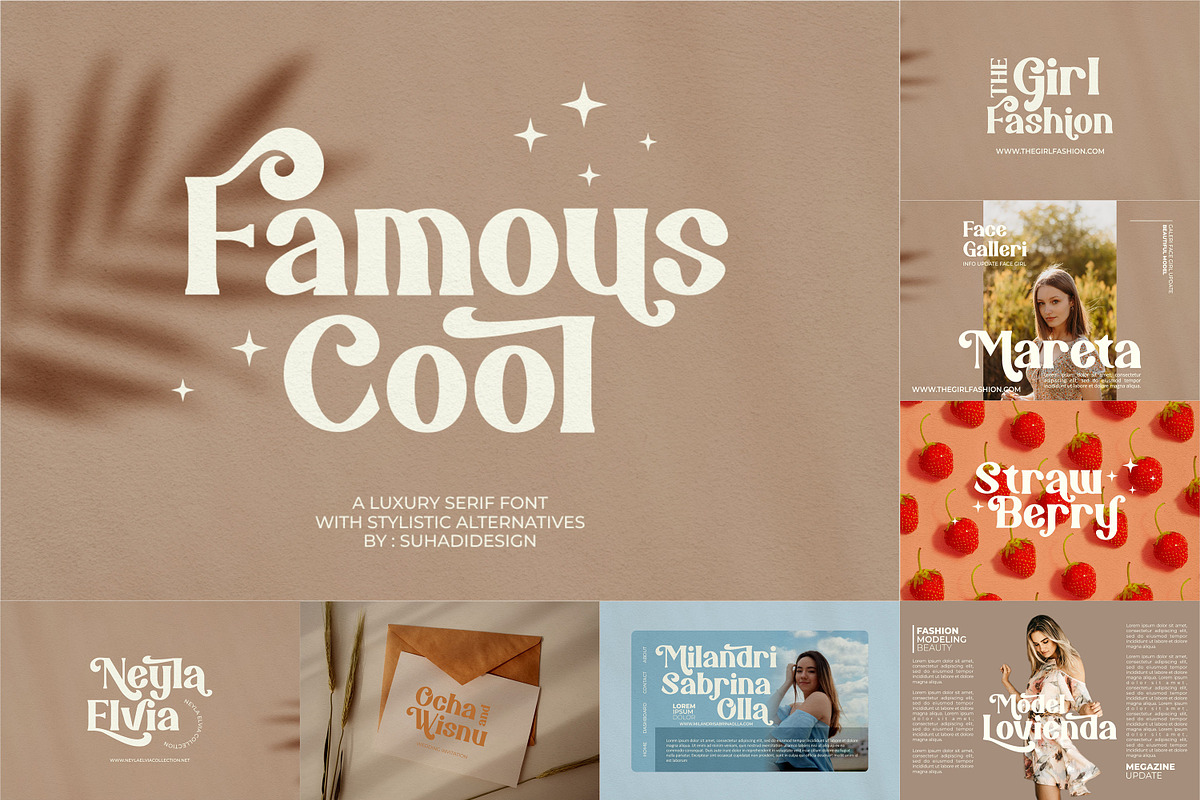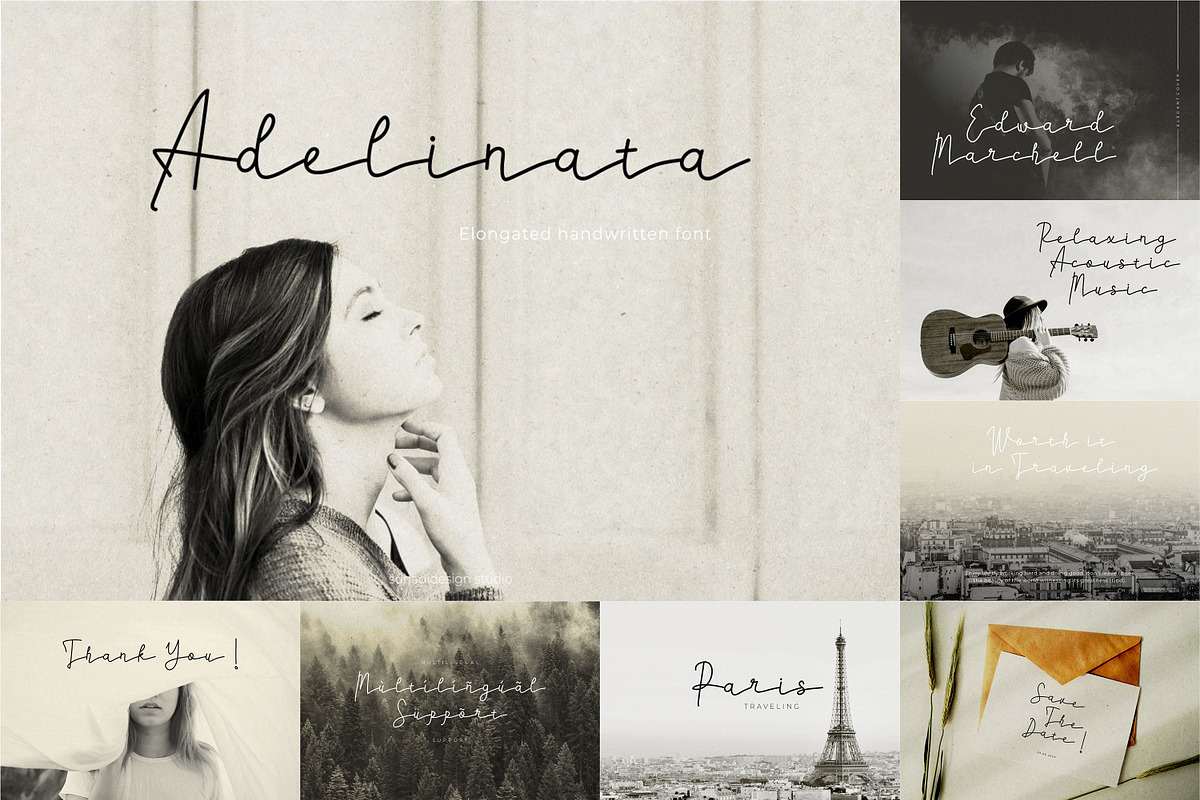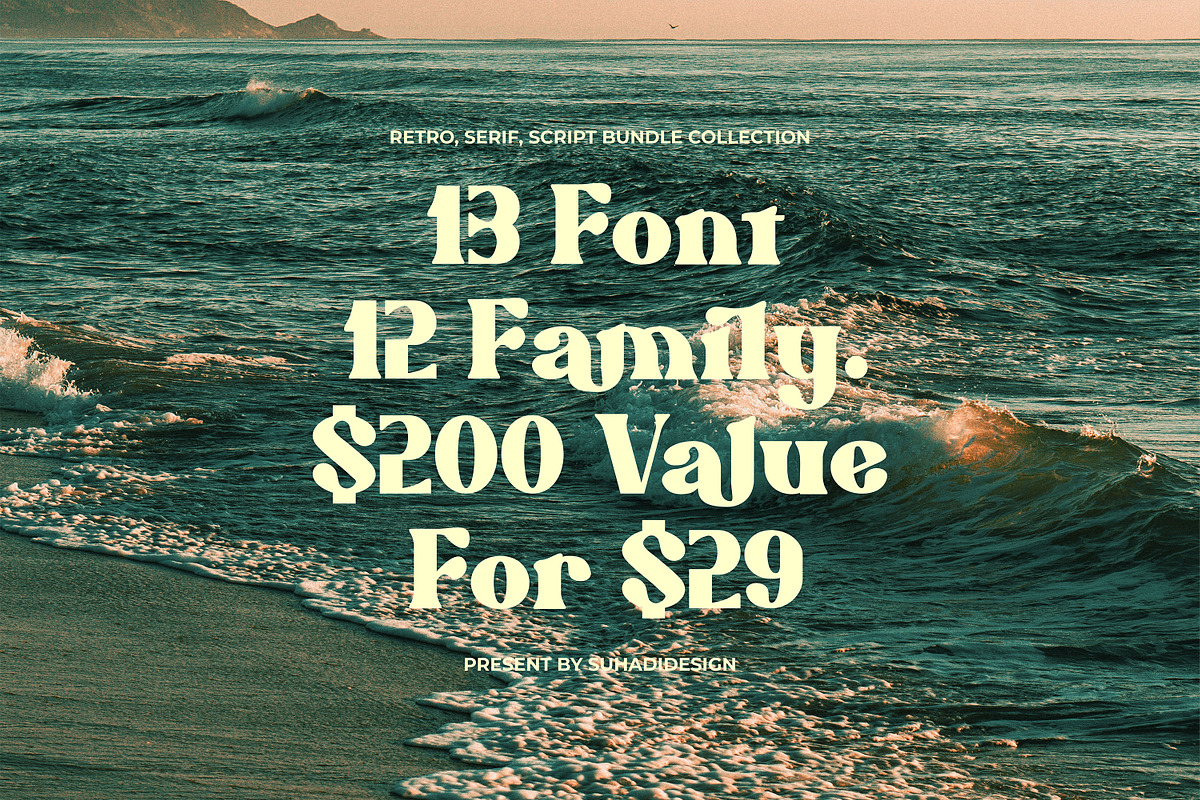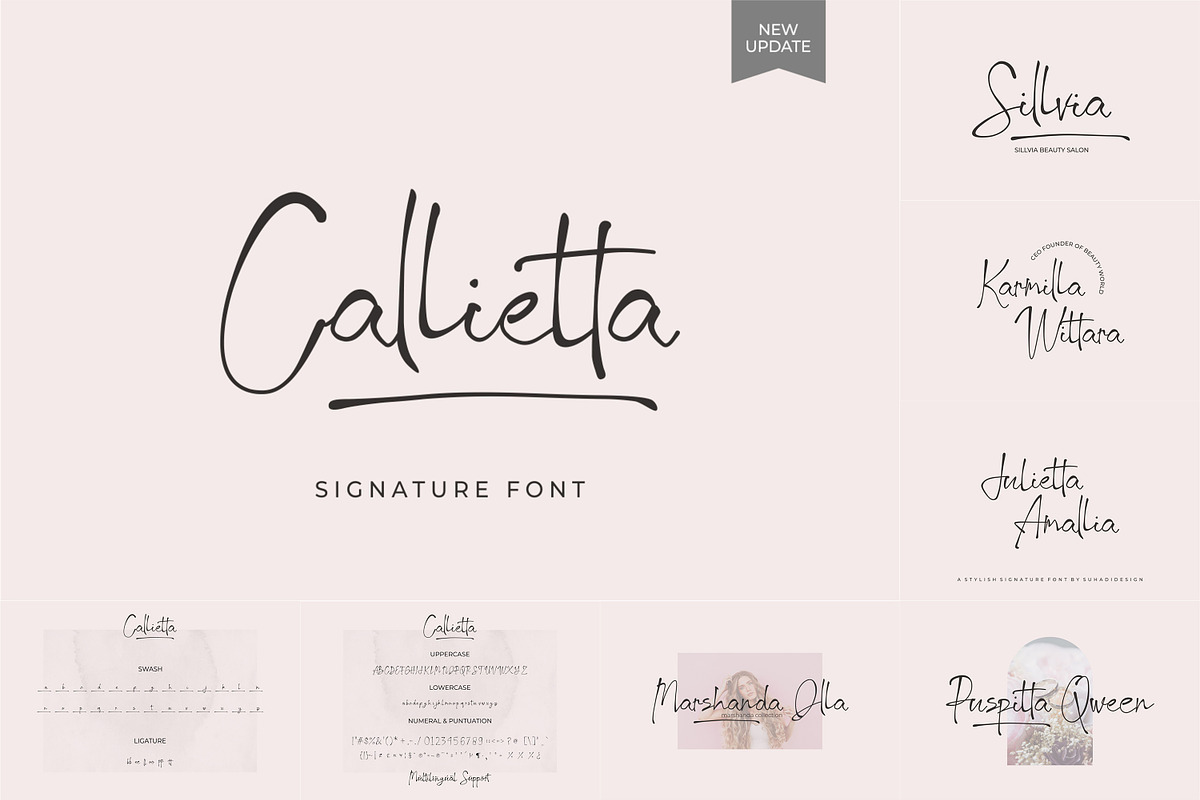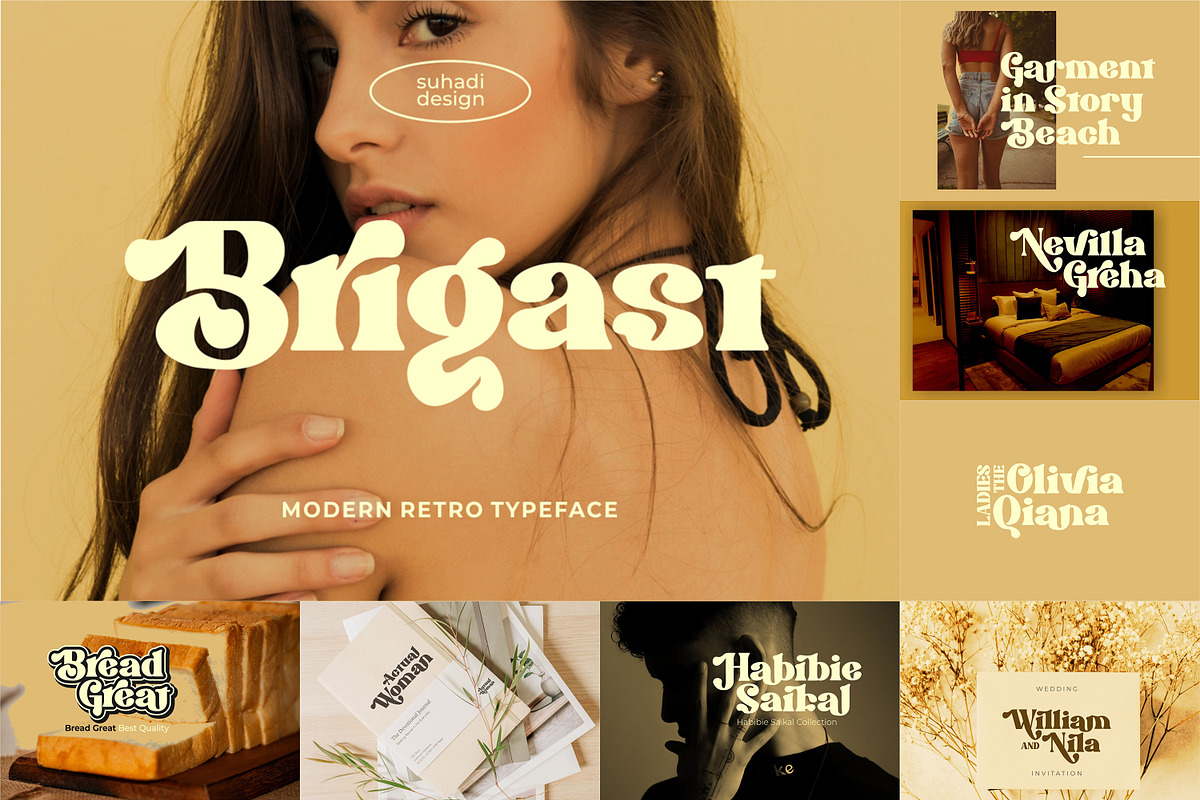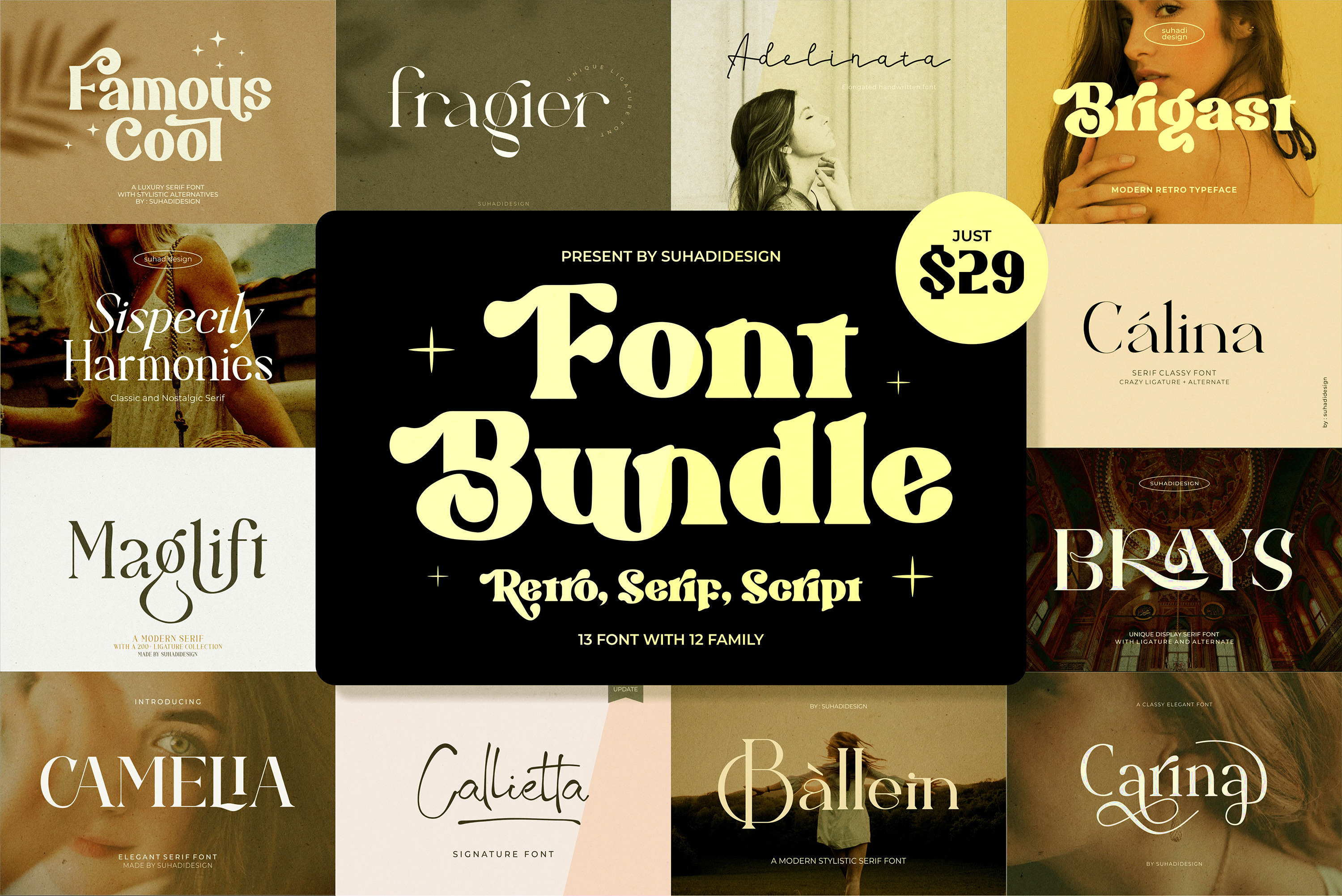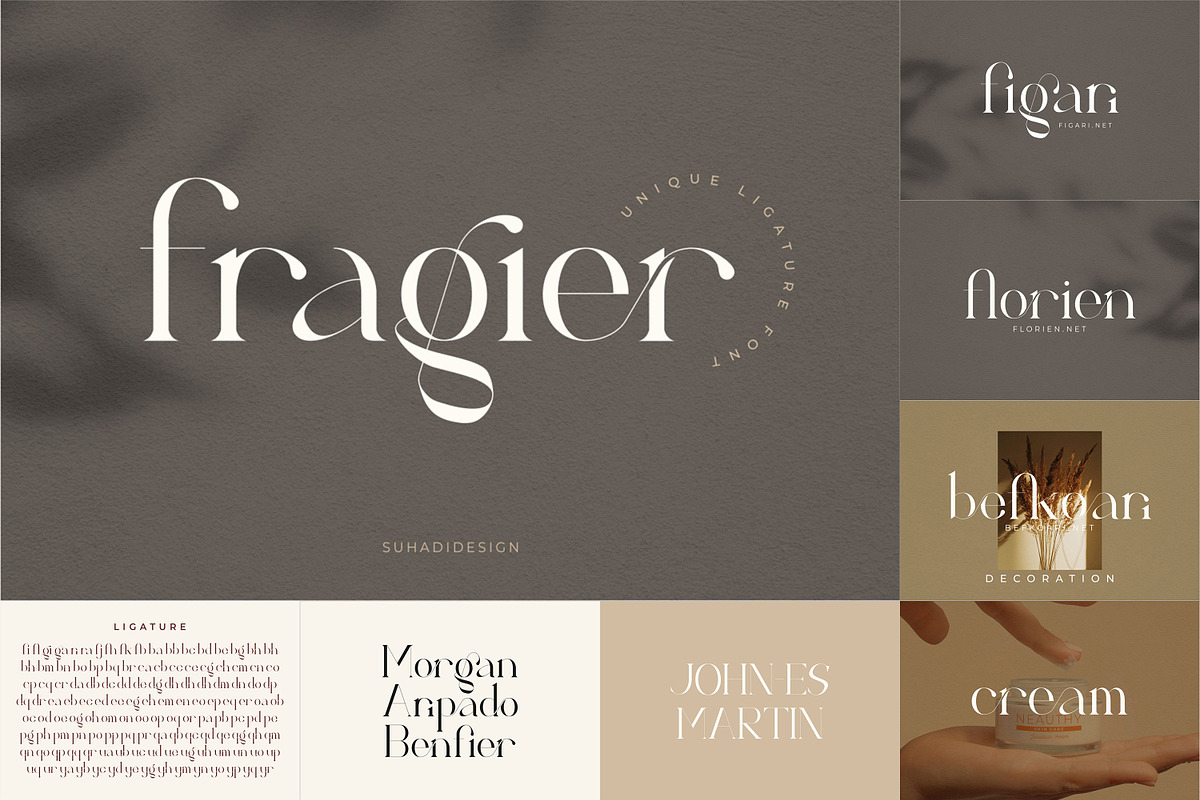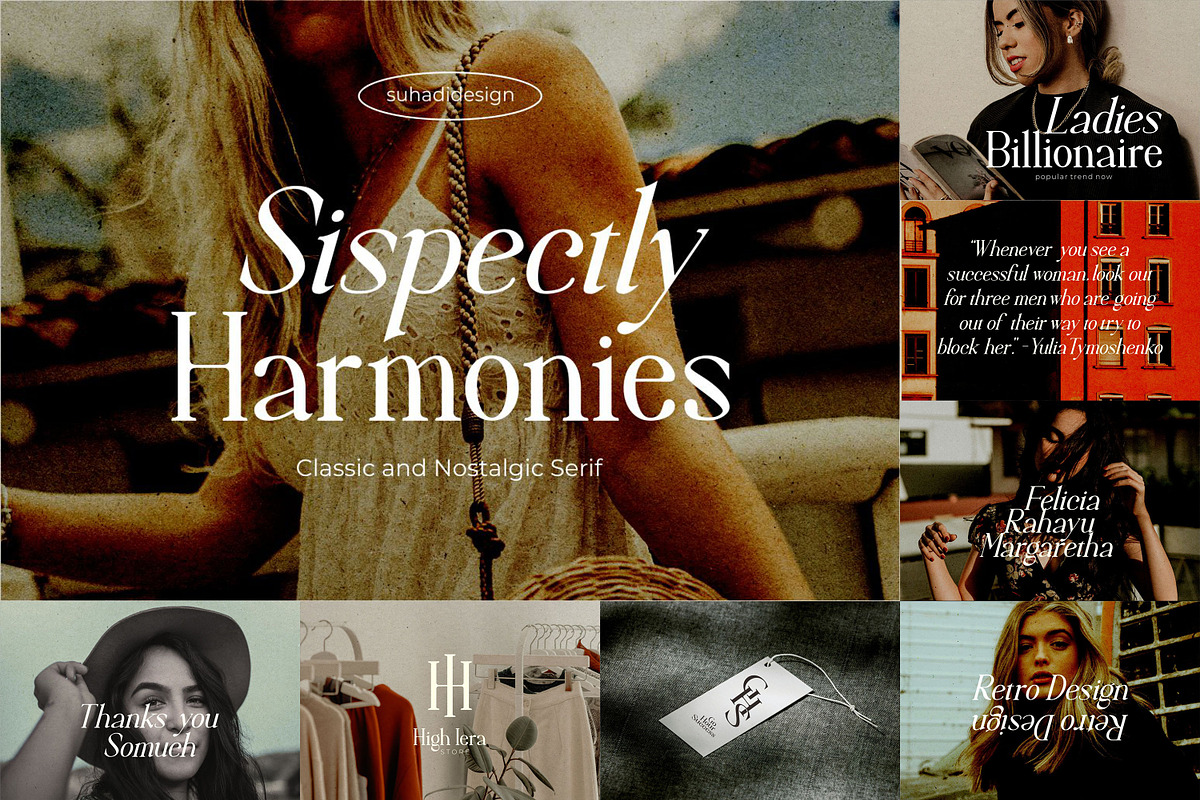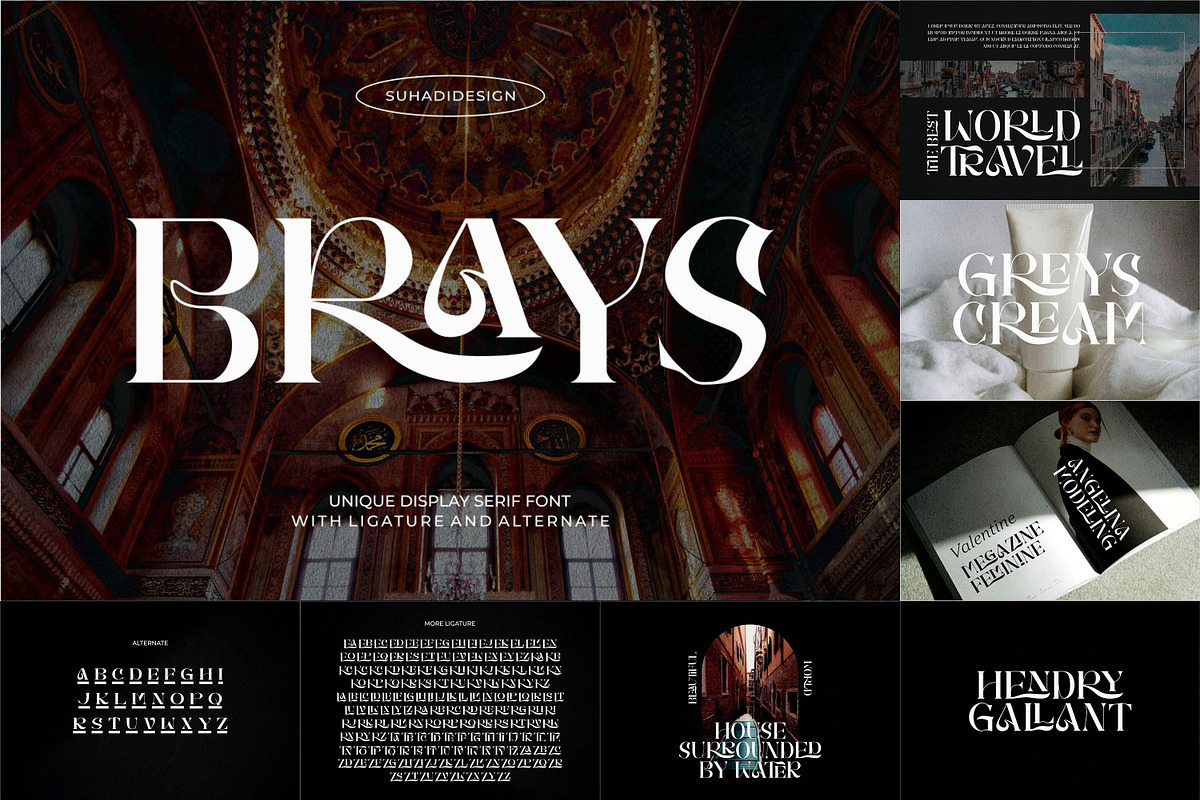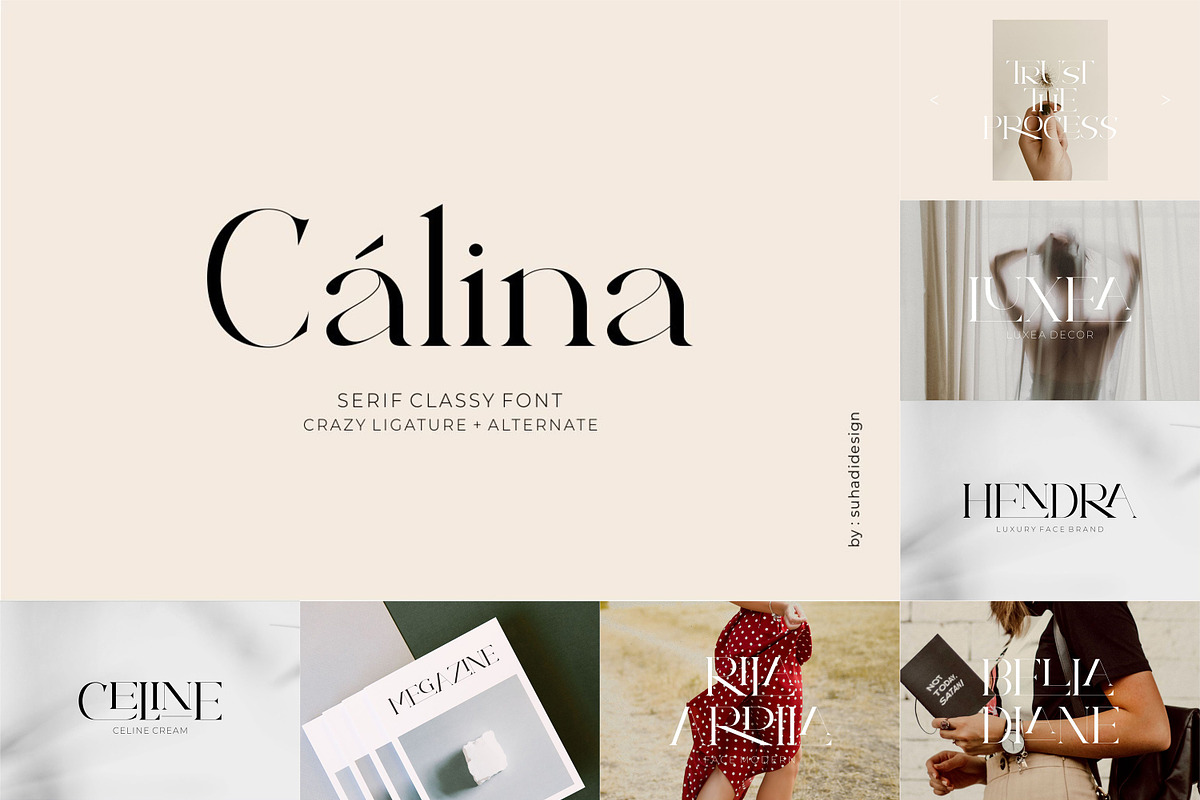
This bundle contains 12 high quality fonts. Our best selling and flagship fonts from Retro, Serif, and Script Fonts are all with a modern look that is elegant, stylish and popular. This bundle is the first and very special that I am launching. Very easy to use
CONTAINS BEST SELLING FONTS :
- 13 fonts with 12 family.
- Includes retro fonts, serif fonts, script, and header fonts with a retro, modern, stylish look.